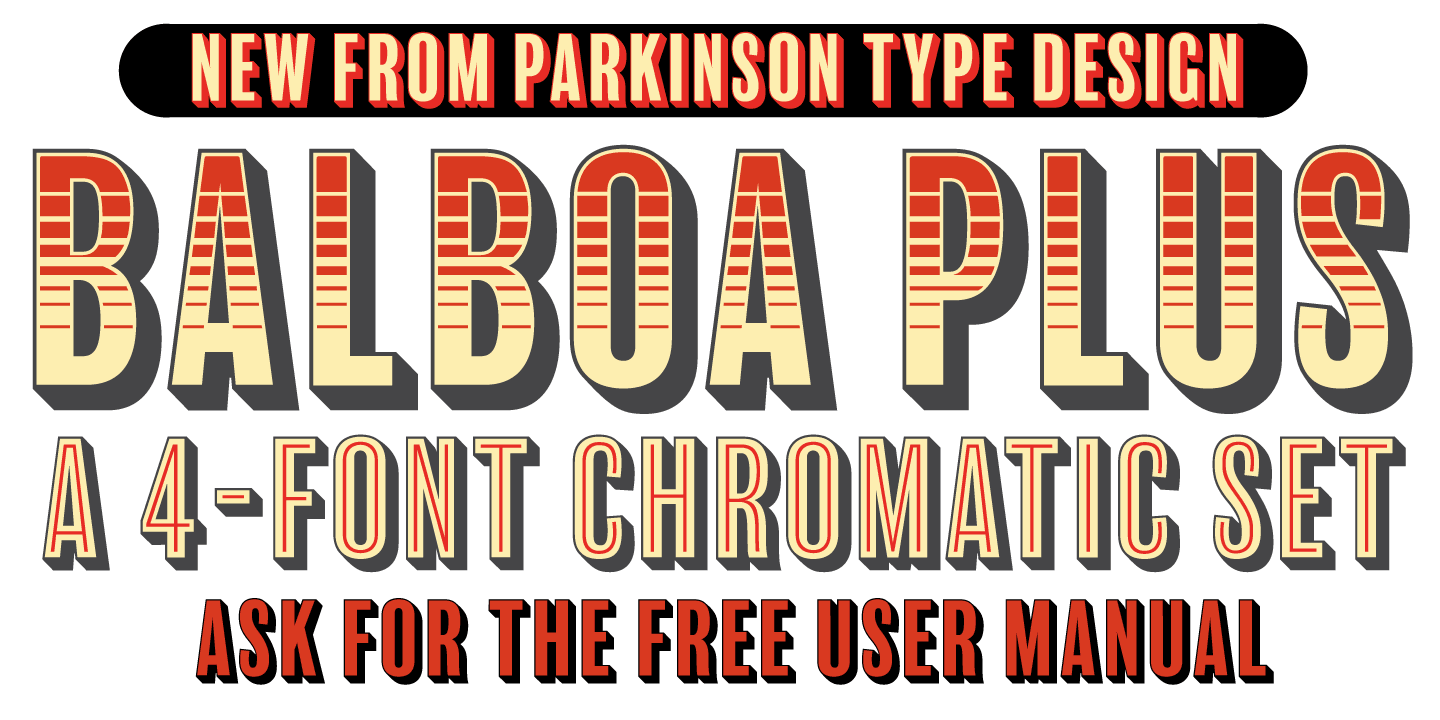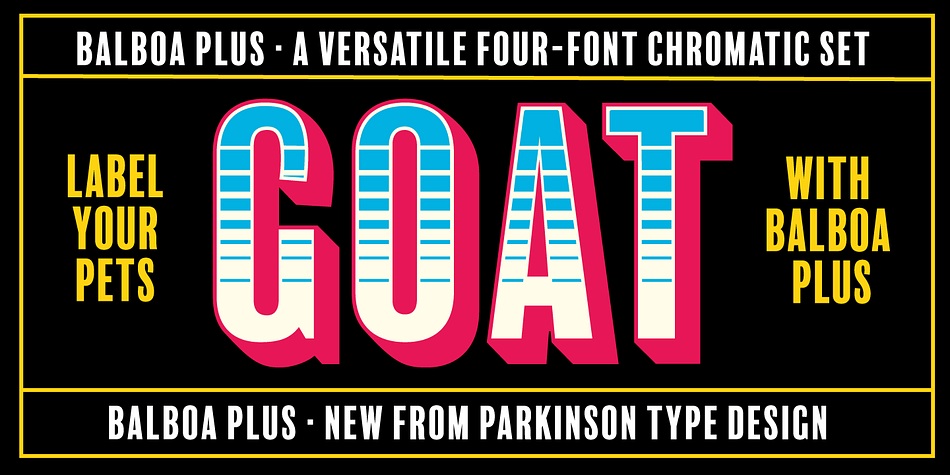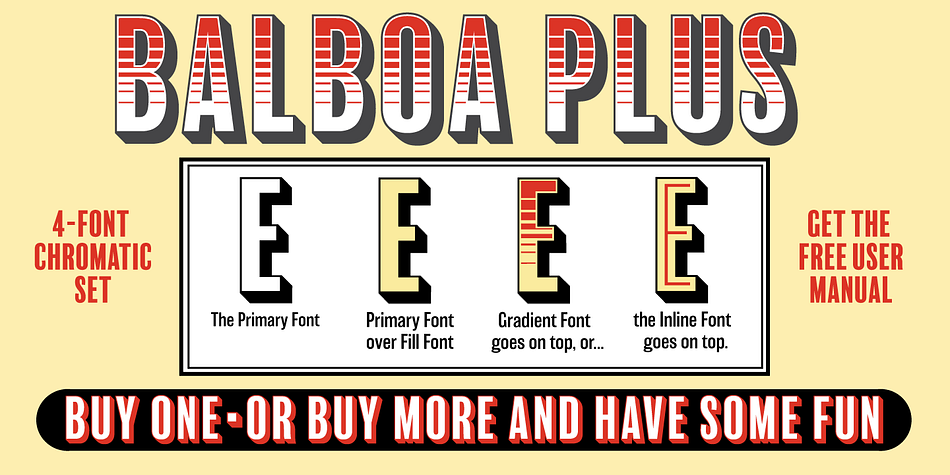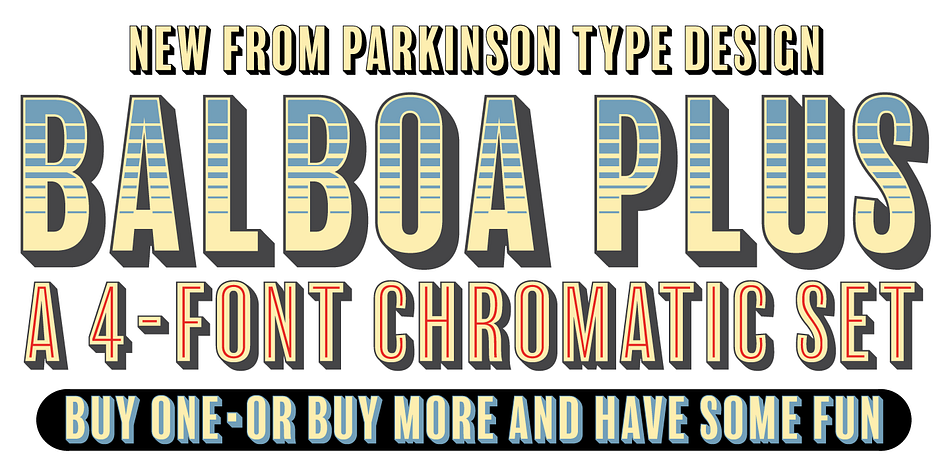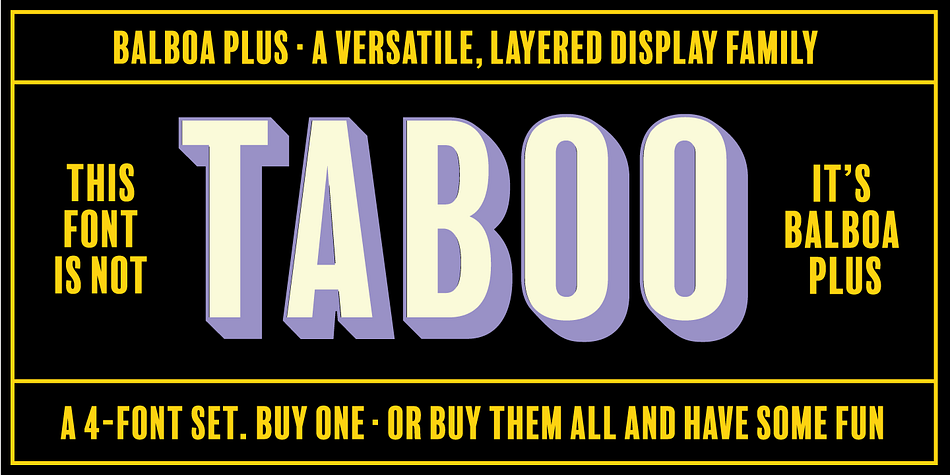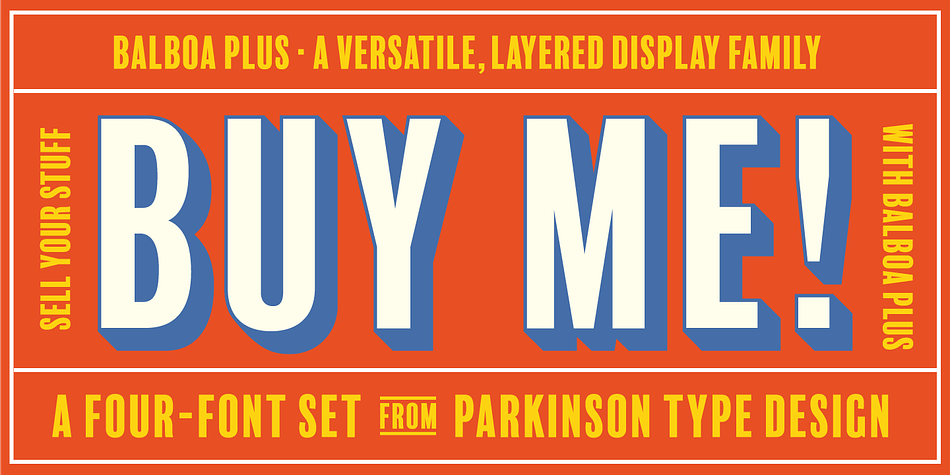
Balboa Plus is a display sans font family. This typeface has four styles and was published by Parkinson Type Design.
Balboa Plus is a condensed sans serif display family. It was originally conceived as a simple black and white typeface. But it seemed unfinished, begging for something more. I decided to try adding a couple layers of fill and detail to try and make it interesting. The result is this four-layer chromatic font family.
The Primary Font is the Main Font. The other fonts (Fill, Inline, and Gradient) only exist to support the Primary Font. The Fill font should sit behind the Primary font (there is a little color trapping going on). The rest is even easier.